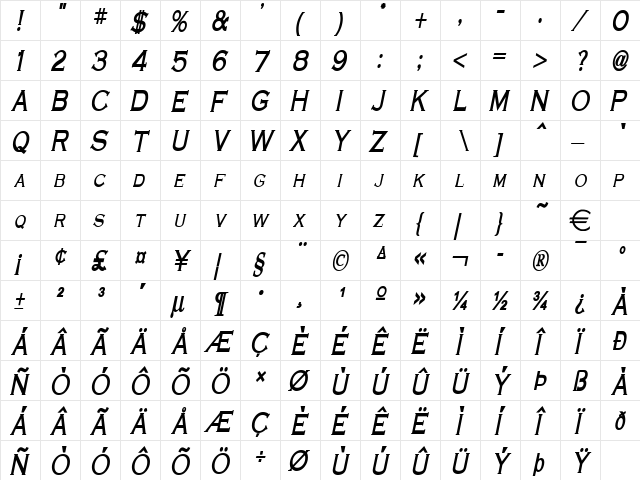
CobaltThin BoldItalic
Design Context for CobaltThin Typeface
CobaltThin takes a measured approach to typography — its balanced proportions and neutral character make it a reliable workhorse for both digital and print work. The slanted form adds forward momentum and visual energy. The heavy weight commands attention and anchors typographic hierarchies.
Pro Tip: Use CobaltThin for emphasis, pull quotes, and subheadings where its slanted energy can add rhythm to the layout.